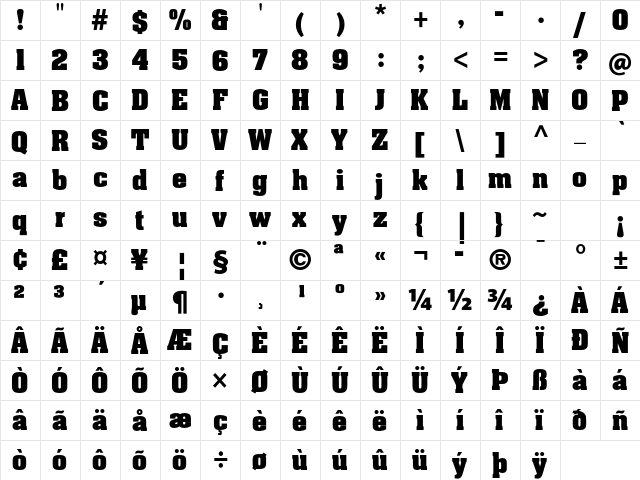
Aachen Std Bold Font Preview
Aachen Std Bold
Aachen Std Bold Font Details
| Designer | Colin Brignall |
Design Context for Aachen Std Typeface
Aachen Std offers clean, dependable letterforms without strong stylistic allegiance, making it a practical choice for designers who need flexibility. Its bold stroke weight gives it real presence on the page.
Pro Tip: Pair Aachen Std with a font of contrasting weight or personality to build a more expressive typographic hierarchy.